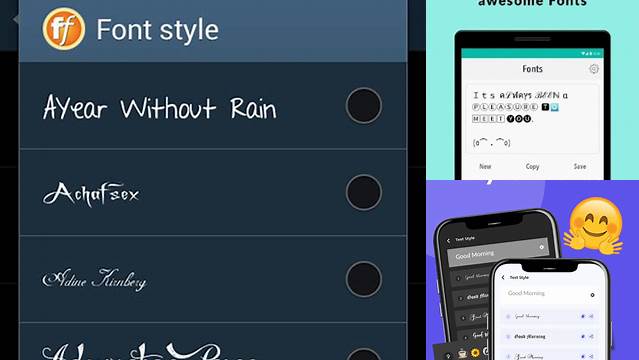
Hey guys! Are you tired of the same old boring fonts on your phone? Do you want to add a personal touch to your device and make it truly yours? Well, you're in luck! In this article, we're diving deep into the world of theme font style apps and how you can download them for free. We'll explore the benefits of using these apps, the features they offer, and some of the best options available in the market. Get ready to transform your device's look and feel with stylish and unique fonts!
In today's digital age, personalization is key. We all want our devices to reflect our individual personalities and tastes. One of the easiest and most impactful ways to do this is by changing the font style. A new font can breathe fresh life into your phone's interface, making it more enjoyable to use and look at. Whether you prefer elegant script fonts, bold sans-serif fonts, or playful handwritten styles, there's a font style app out there for you. The ability to customize fonts allows you to express yourself and create a device that truly represents you. It's like giving your phone a mini makeover, and the best part is, it's incredibly easy to do with the right app.
This article will guide you through everything you need to know about theme font style apps. We'll discuss the advantages of using these apps, such as improved readability, enhanced aesthetics, and the ability to express your personality. We'll also cover the key features to look for in a font app, including the variety of fonts, ease of use, compatibility with different devices, and the ability to preview fonts before applying them. Moreover, we will explore some of the top free font apps available for both Android and iOS devices, giving you a head start in your quest for the perfect font. We'll provide detailed descriptions of each app, highlighting their unique features and benefits. By the end of this article, you'll be well-equipped to download a font app and start customizing your device's fonts like a pro!
Why Use a Theme Font Style App?
So, why should you even bother with a theme font style app? Well, there are tons of reasons! First and foremost, it's all about personalization. Your phone is an extension of yourself, and changing the font is a simple yet effective way to make it feel more like you. Imagine being able to choose a font that perfectly matches your personality, whether it's a sleek and modern sans-serif for a professional vibe or a whimsical script for a touch of fun. The possibilities are endless! Using a font style app allows you to express your individuality and make your device truly unique. It's like giving your phone a new outfit – a fresh look that reflects your style and preferences.
Beyond aesthetics, font apps can also significantly improve readability. Some fonts are simply easier on the eyes than others. If you spend a lot of time reading on your phone, choosing the right font can reduce eye strain and make the experience more enjoyable. Think about those long articles or e-books you love to read – a well-chosen font can transform the reading experience. Plus, if you have any visual impairments, using a larger or clearer font can make a world of difference. Many font apps offer options specifically designed for enhanced readability, ensuring that everyone can enjoy their device comfortably. This can be particularly useful for older users or those with specific visual needs. A custom font can make a huge difference in how you interact with your phone on a daily basis.
Another great benefit of using a font app is the ability to customize your device's appearance. With the right app, you can change the font not just for your system but also for individual apps. This means you can tailor the look of each app to your liking, creating a cohesive and visually appealing experience. Imagine having different fonts for different purposes – a professional font for work-related apps and a more playful font for social media. This level of customization allows you to create a truly personalized user experience. Moreover, many theme font style apps come with additional customization options, such as icon packs and wallpapers, allowing you to completely transform the look of your device. It's like having a personal designer in your pocket, ready to help you create the perfect aesthetic for your phone.
Key Features to Look for in a Font Style App
Okay, so you're convinced that a font style app is a must-have. But with so many options out there, how do you choose the right one? Don't worry, we've got you covered! Here are some key features to look for when selecting a font app: First up is the font variety. A good app should offer a wide range of fonts to choose from, including different styles, weights, and sizes. You want to make sure there's something for everyone, whether you're into classic fonts, modern fonts, or something totally unique. The more options, the better! This allows you to experiment and find the perfect font that suits your taste and needs. Look for apps that regularly update their font libraries, adding new and trendy options to keep your device looking fresh.
Next, consider the ease of use. Let's face it, nobody wants to deal with a complicated app. The best font apps are intuitive and user-friendly, making it easy to browse fonts, preview them, and apply them to your device. The process should be seamless and straightforward, even for beginners. Look for apps with a clean and organized interface, clear instructions, and helpful tutorials. A good app will also allow you to easily revert back to your default font if you change your mind. The goal is to make font customization a fun and effortless experience, not a frustrating one. After all, changing your font should be a breeze!
Compatibility is another crucial factor. Make sure the font app you choose is compatible with your device and operating system. Some apps may only work on certain Android versions or iOS devices. Check the app's description or reviews to ensure it will work seamlessly with your phone or tablet. You don't want to download an app only to find out it's not compatible! Additionally, consider whether the app supports different applications on your device. Ideally, you want an app that allows you to change fonts across your entire system, including messages, emails, and social media apps. Compatibility ensures that you can enjoy your new fonts everywhere, creating a consistent and personalized experience.
Finally, don't forget about the preview option. Before applying a font, you'll want to see how it looks on your device. A good font app will let you preview fonts in different contexts, such as on your home screen, in messaging apps, and in other applications. This allows you to get a feel for the font and make sure it's the right fit for your needs. Look for apps that offer a live preview feature, allowing you to see the font in real-time as you browse. This will save you time and prevent you from applying fonts that you don't actually like. Previewing fonts is an essential step in the customization process, ensuring that you're happy with your choice before making it permanent.
In conclusion, theme font style apps offer a simple yet powerful way to enhance your device's aesthetics and functionality. Whether you're looking to improve readability, express your personality, or simply refresh your phone's appearance, changing the font is a great option. By following the tips and recommendations in this article, you can easily find and download the perfect font app for your needs. So go ahead, explore the world of custom fonts and create a device that truly reflects you. Happy customizing!